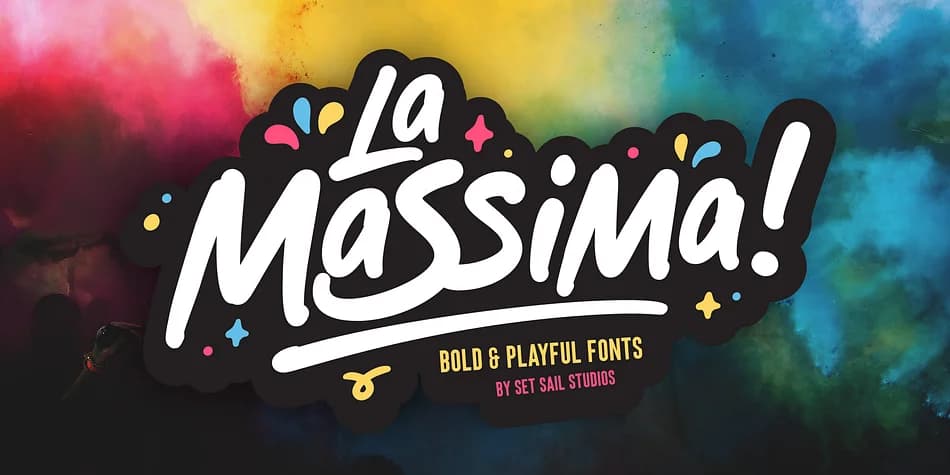
This font bounces with personality and hand-drawn charm. La Massima by Set Sail Studios is a set of four energetic typefaces that bring playful variety into every word you create. What sets it apart is the thoughtful design: three complete alternate character sets give you six different forms for each letter, so mixing variations across the same line produces truly custom-looking typography that feels authentic rather than repetitive or constructed. The bonus extras font adds another element, delivering 52 swashes and decorative doodles you can place underneath or scatter alongside your main text to amplify the handmade quality.
Reach for La Massima when building indie brand identities with genuine personality, crafting wedding invitation suites with a contemporary hand-drawn sensibility, designing boutique product labels that catch customers' eyes, or illustrating editorial posters with playful energy. The font's generous language support (English, French, Italian, Spanish, Portuguese, German, Swedish, and 16 others) makes it dependable for global projects. The real trick is mixing variations from each font set strategically within the same word, then accenting with swashes to give layouts that individual, custom-drawn feel. Pair it with a clean, neutral sans-serif for body copy to keep the design grounded. This set lives on Creative Fabrica.
La Massima Font is a decorative font that shines as a display or heading face. Pair it with a clean sans-serif or serif font for body text β the contrast creates a clear hierarchy while the two styles stay balanced and easy to read.